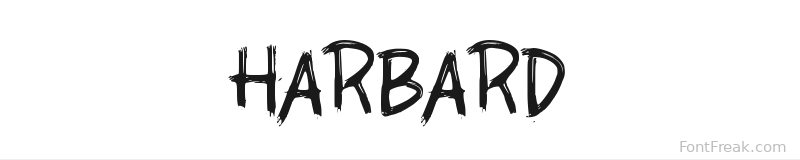
HARBARD
HARBARD, designed by Wahyu Eka Prasetya, is a striking display font that captures attention with its unique aesthetic. This freeware font showcases a bold handwritten style, characterized by its expressive strokes and dynamic forms. The visual characteristics of HARBARD include a varied stroke weight that creates a sense of movement and energy, while its uneven baseline adds a playful touch. The contrast in thickness between the thick and thin parts of the letters enhances its artistic appeal, making it a versatile choice for various design projects.
HARBARD is particularly well-suited for creative applications such as wedding invitations, where its whimsical charm can add a personal touch. It also excels in movie posters, effectively conveying a sense of drama and intrigue. Additionally, this font can elevate restaurant menus, giving them a modern flair that attracts diners. Content creators will find HARBARD to be an excellent choice for social media graphics, where eye-catching typography is essential for standing out in crowded feeds.
The target audience for HARBARD includes graphic designers seeking a fresh, artistic typeface, small business owners looking to enhance their branding, and content creators who wish to add a unique touch to their projects. Its versatility and distinct style make it a valuable addition to any designer’s toolkit.
What sets the HARBARD font apart is its ability to blend creativity with functionality. Its free download option allows designers to experiment without financial commitment, while its striking visual elements ensure that designs are memorable. Whether you're crafting invitations, promotional materials, or digital content, HARBARD brings a unique flair that captures the essence of artistic expression. Embrace this font as a means to elevate your creative projects and make a lasting impression.